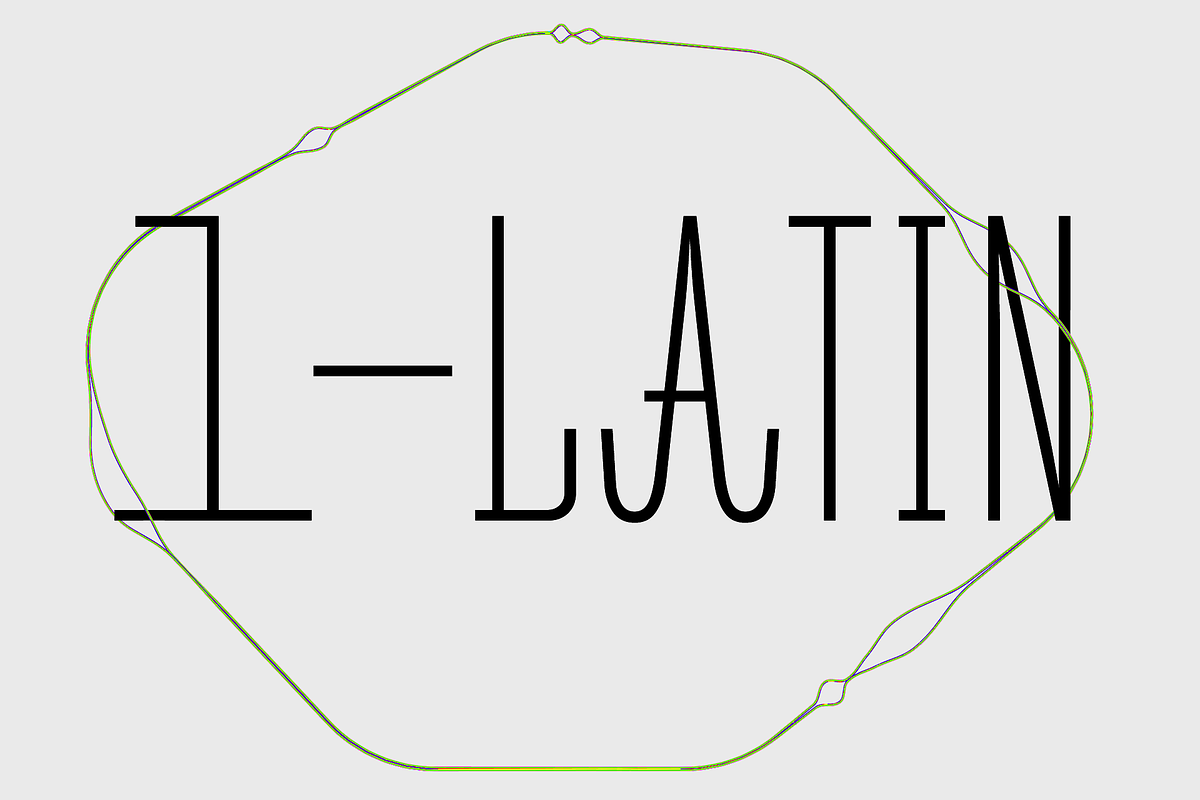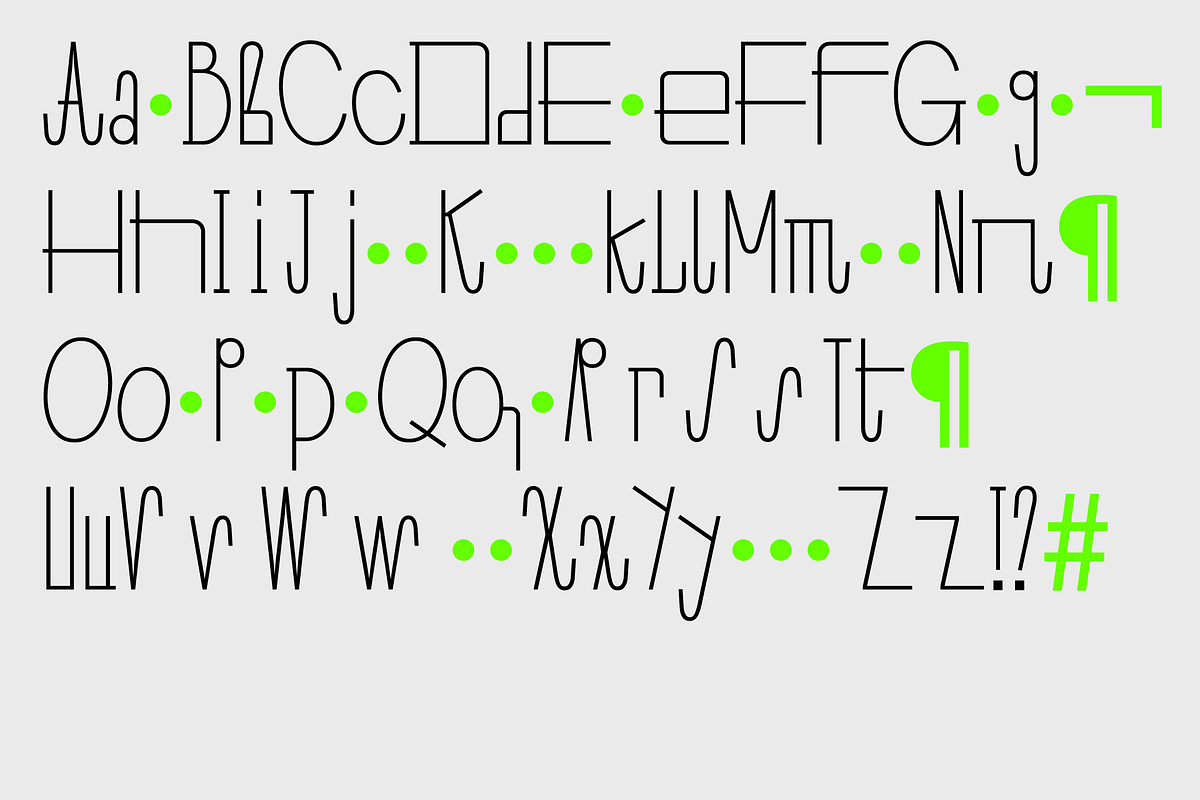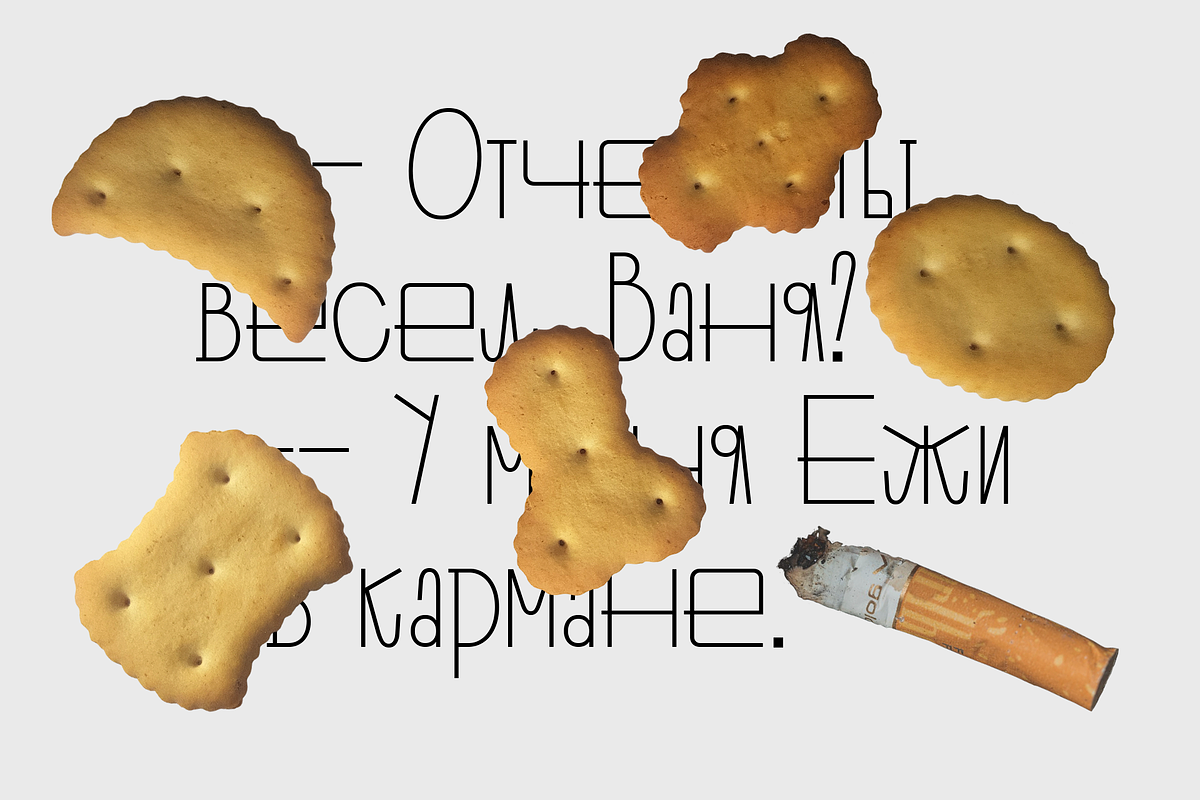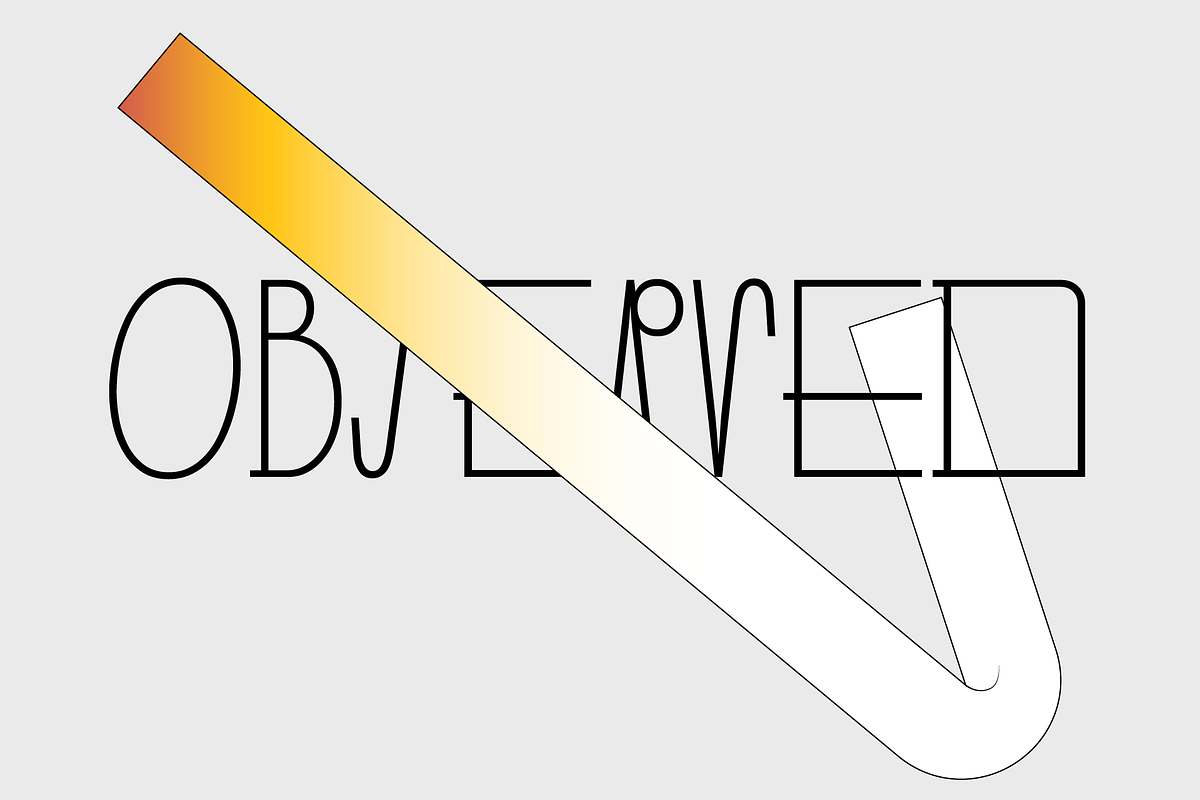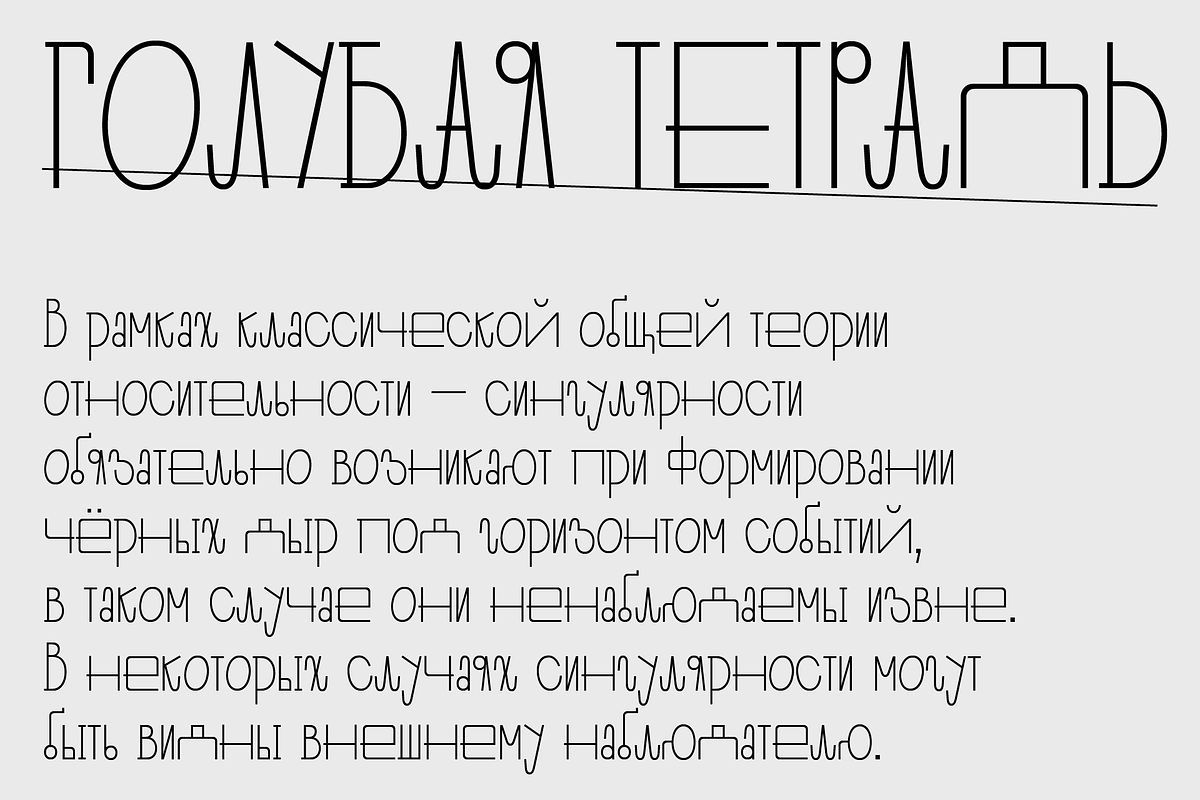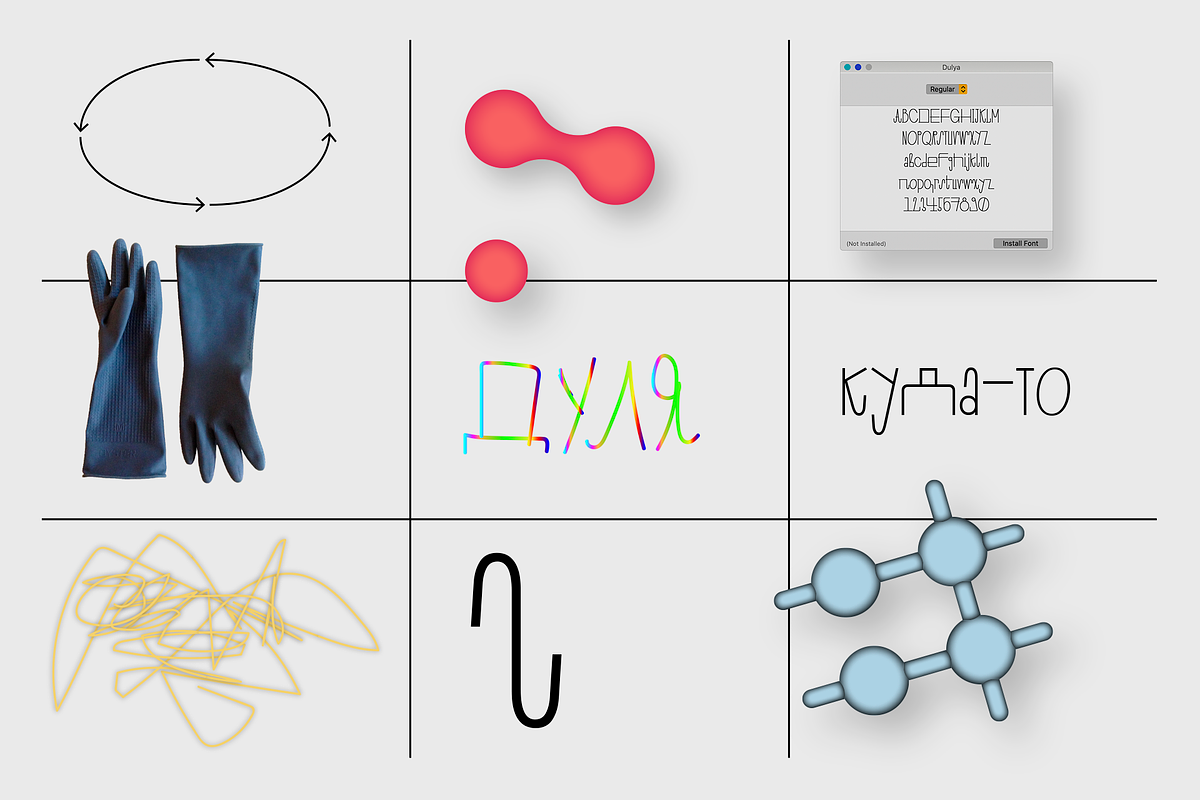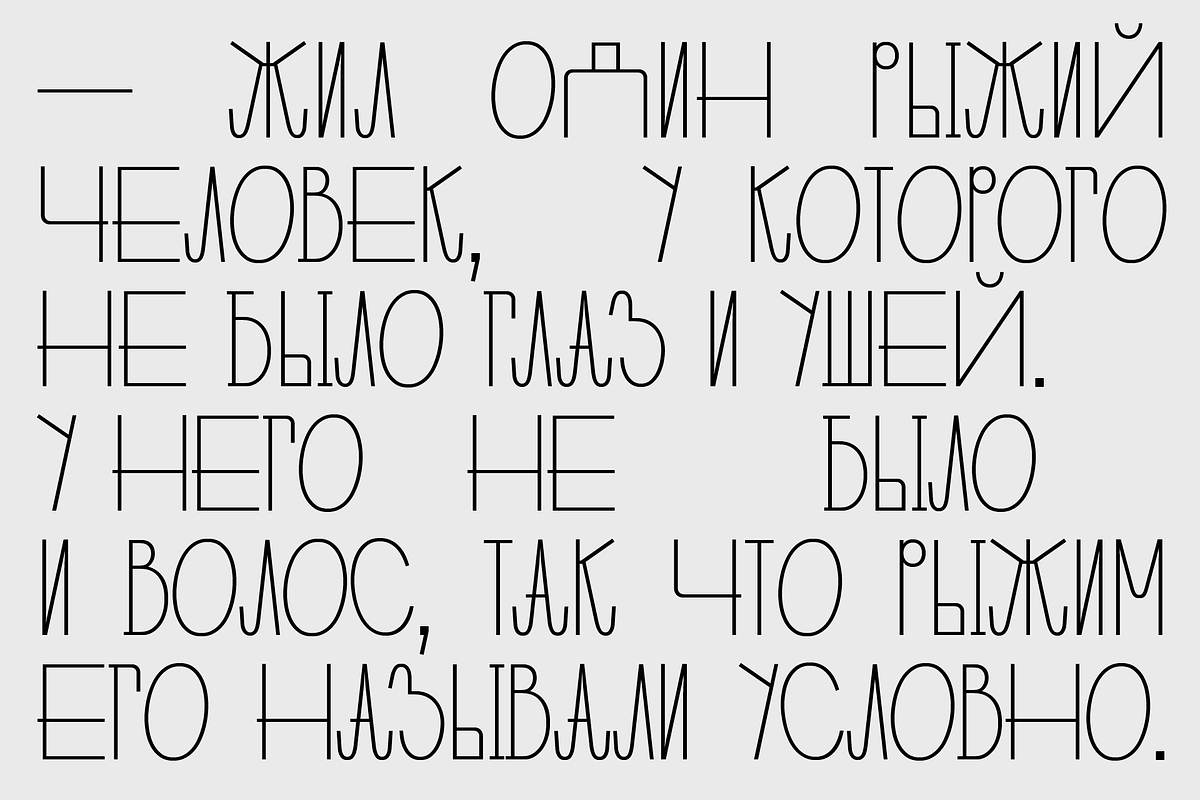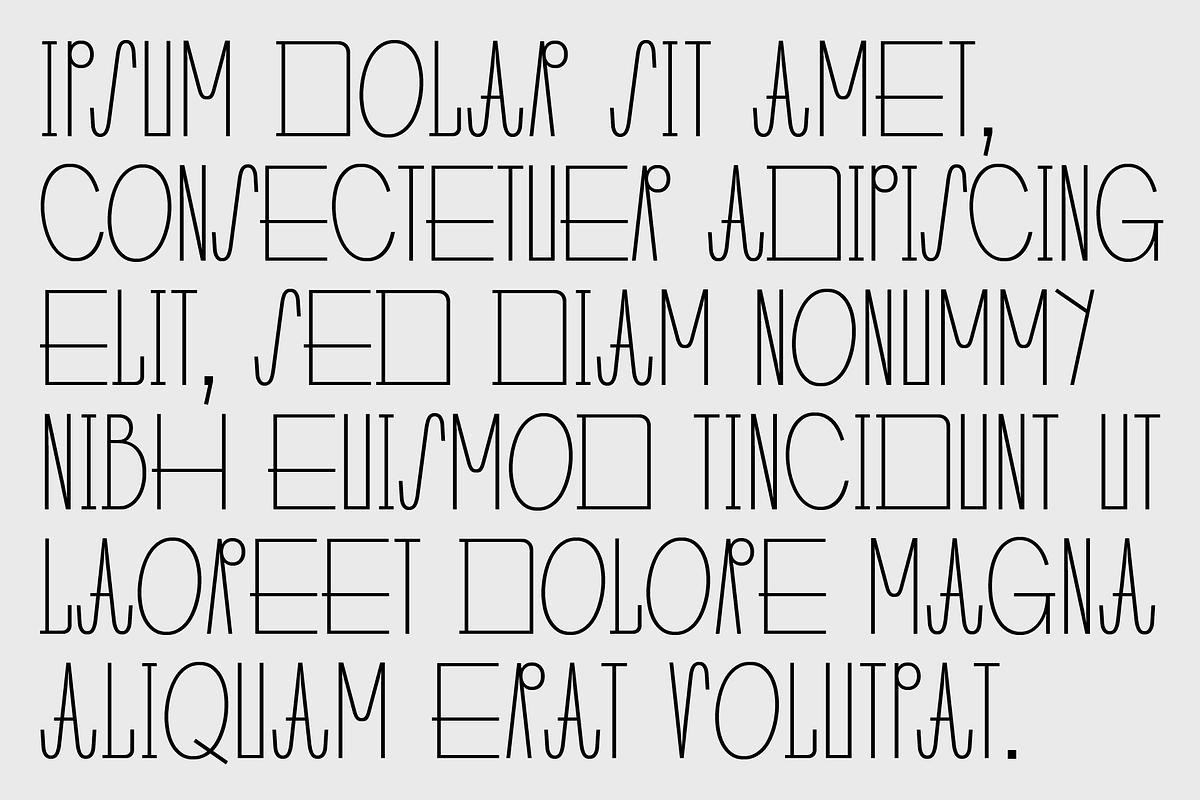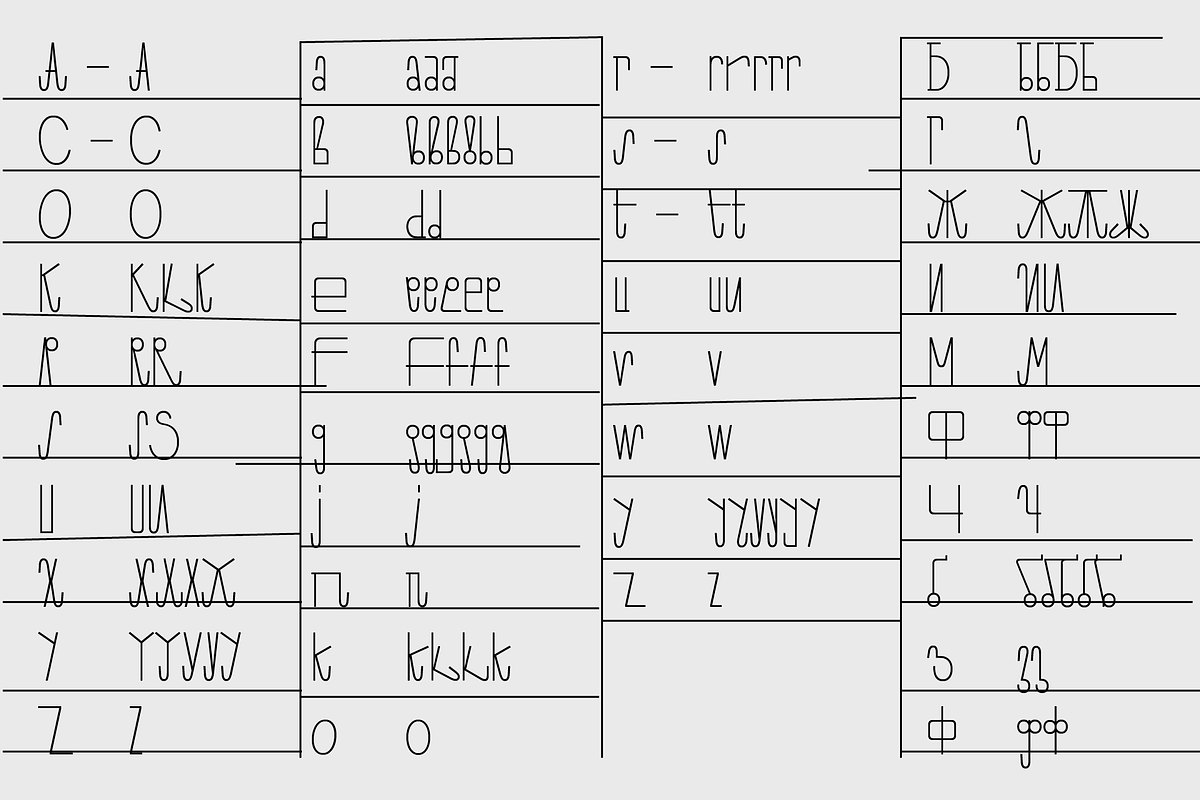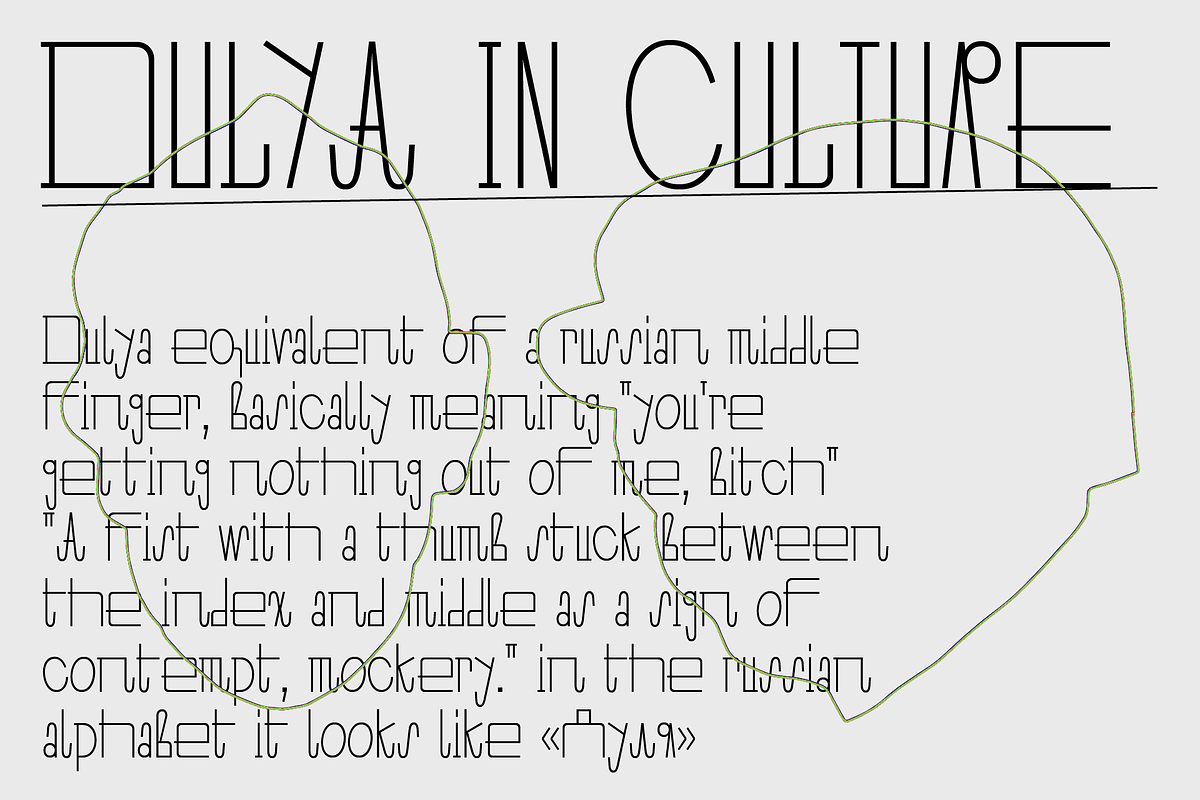
Dulya Font
"Dulya" is a weird, funny and irrational font. The design of the letters is based on the handwriting which is usually taught in school but the letters' graphics are geometrically transformed to make them interesting.
The font has many alternative characters, so you can very freely control the texture of the text. Dulya supports Basic Latin and Extended Latin, Cyrillic — in total about 90 languages are supported.The font has one Regular weight, alternative characters, Uppercase and lowercase.
♦ Dulya supports
- Basic Latin
- Extended latin
- Cyrillic
- Diacritics
- Punctuation signs
- Currencies